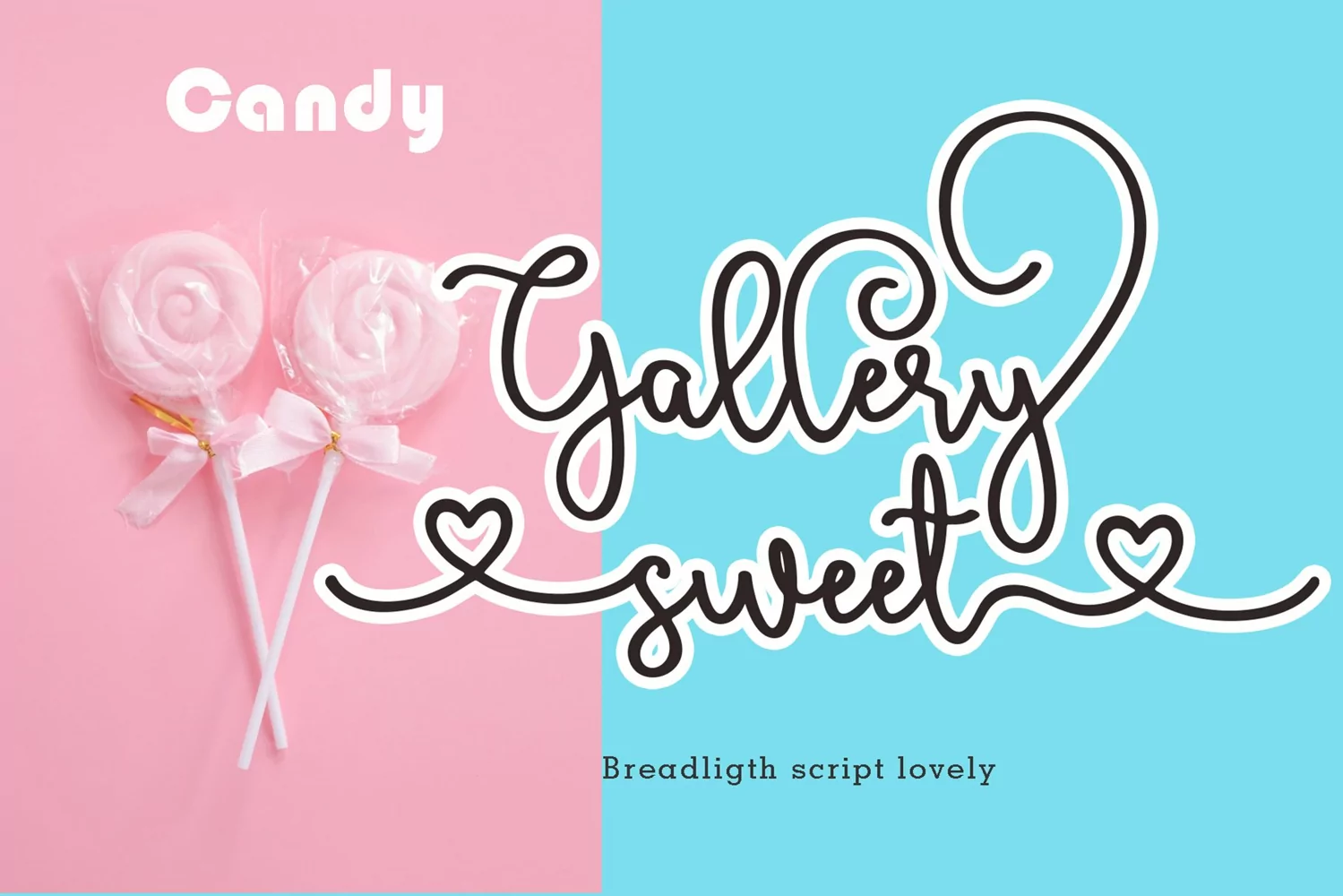
Bread ligth
Bread ligth is a handwritten font of modern letters, very simple and light. This font is also very cute ... equipped with Alternative swash, and supports international languages as well., this font can also be connected by heart, it will be beautiful to look at.